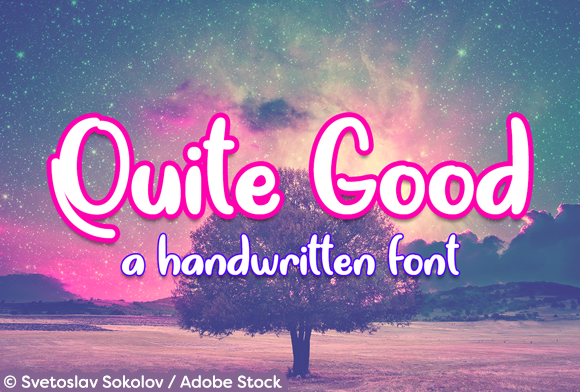
Quite Good Font
About Quite Good Font
Quite Good is a funky & fun handwritten font that will add style and flair to your projects! Great for advertisements, logos, product branding, and so much more!